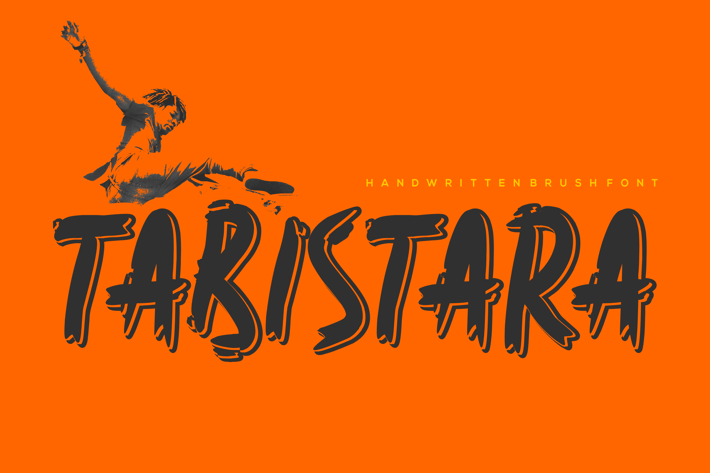
Tabistara Font
Introducing our new product Tabistara Font - Modern Font
Tabistara Font - Modern Font is a bold and authentic display font. The font is suitable for any branding project like logo, esport, and many more. outstanding in a wide range of contexts.